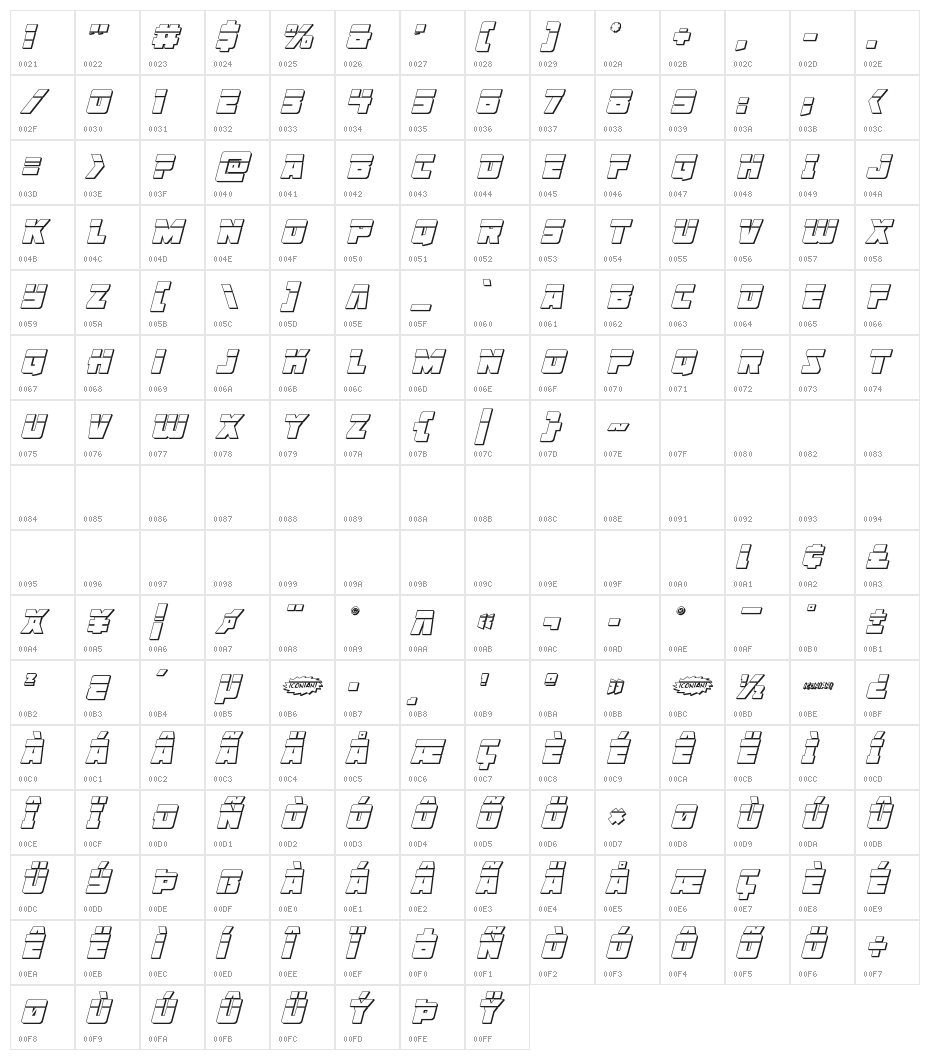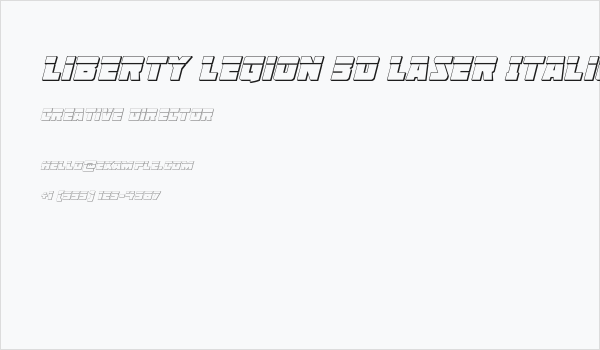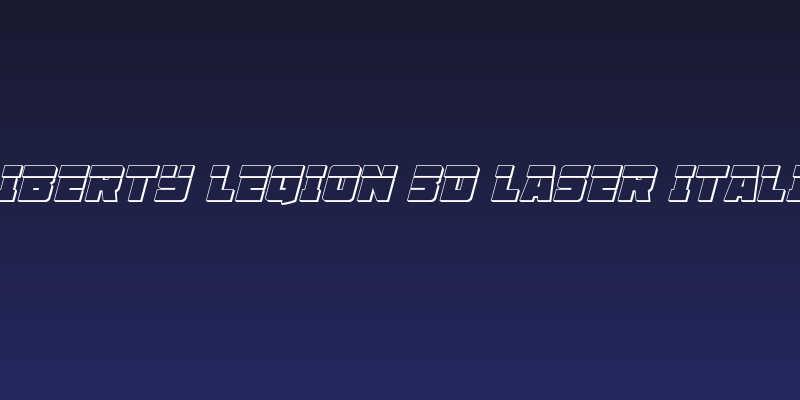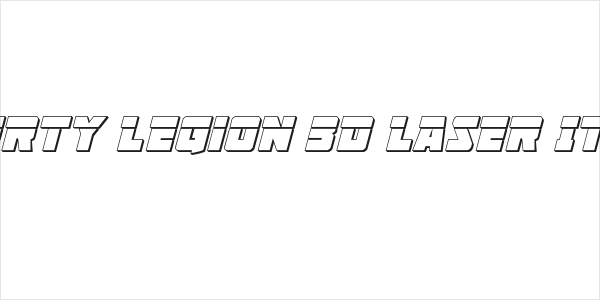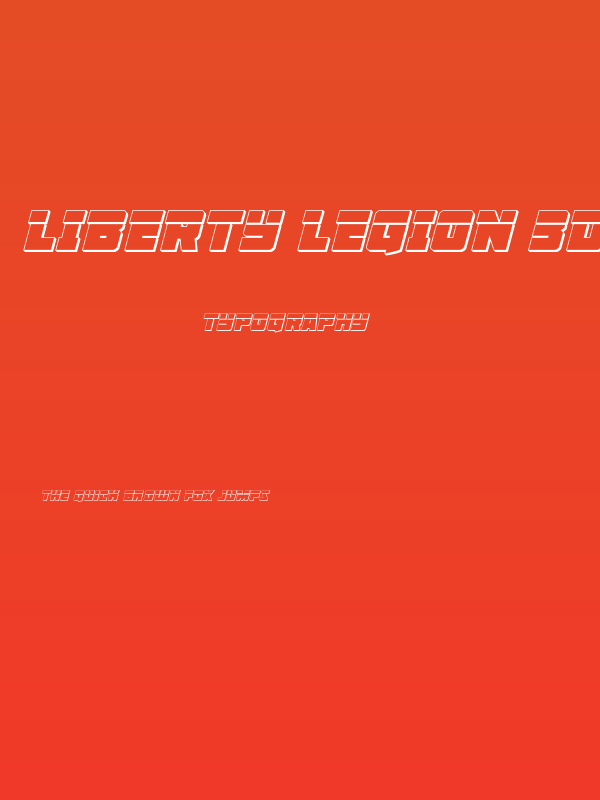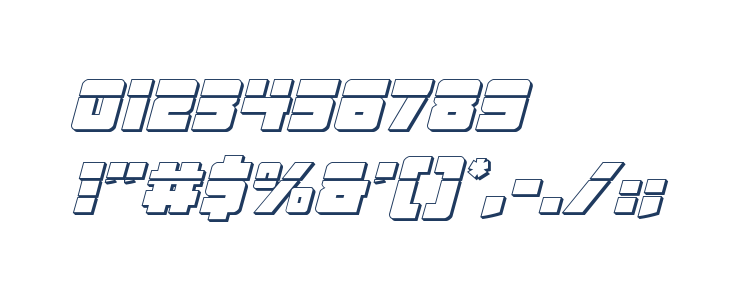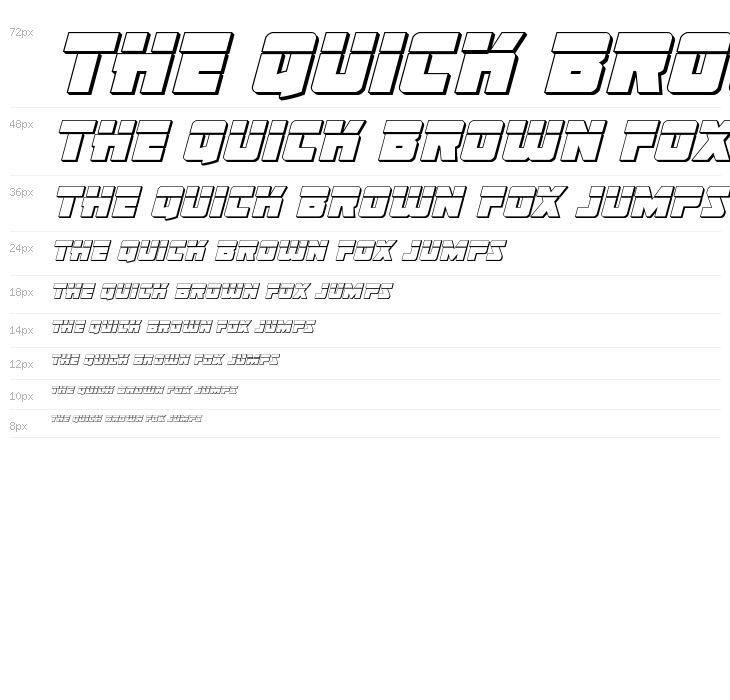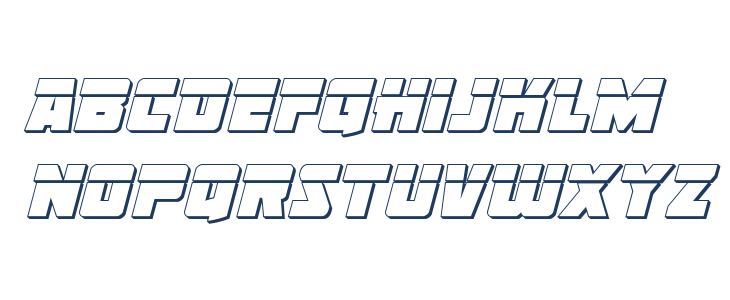
Liberty Legion 3D Laser Italic Font
Liberty Legion 3D Laser Italic Description
This font features a bold, three-dimensional design with a futuristic and dynamic appearance. The letters are constructed with a blocky, geometric style, giving them a strong and impactful presence. The italic slant adds a sense of motion and speed, enhancing its modern and edgy look. The 3D effect is achieved through a clever use of shading and outlines, creating depth and a laser-like precision. This font is ideal for projects that require a bold statement and a contemporary aesthetic.
| Proposed Projects | Ideal for video game titles, sci-fi movie posters, tech branding, and futuristic event flyers. |